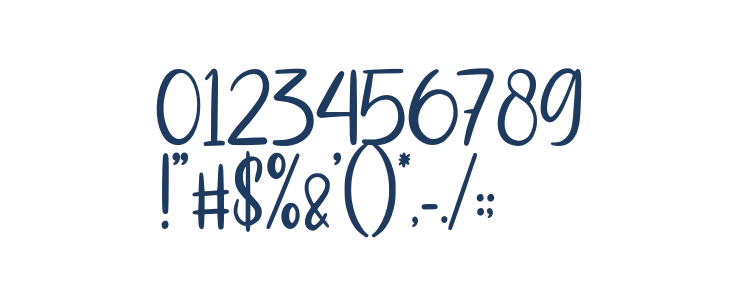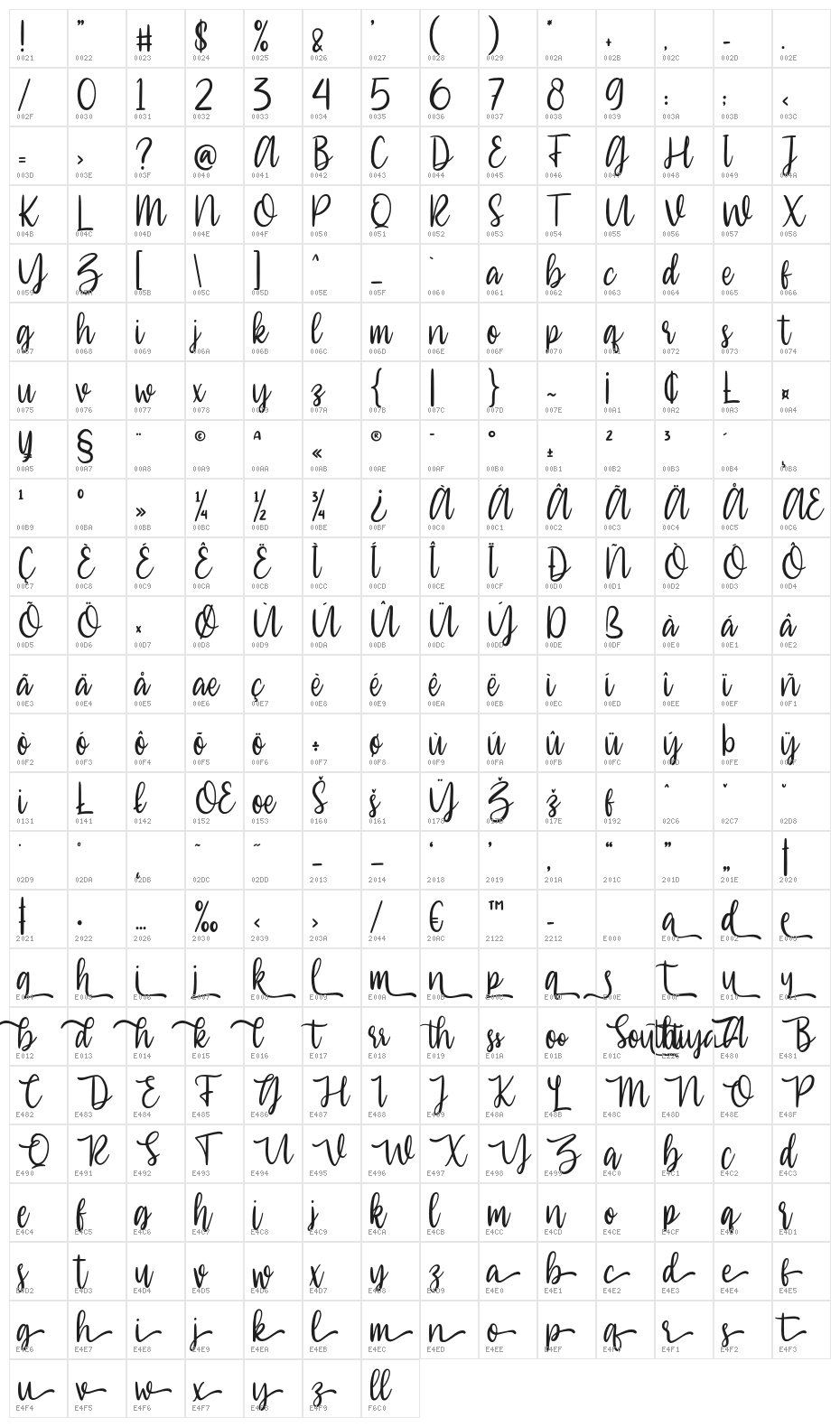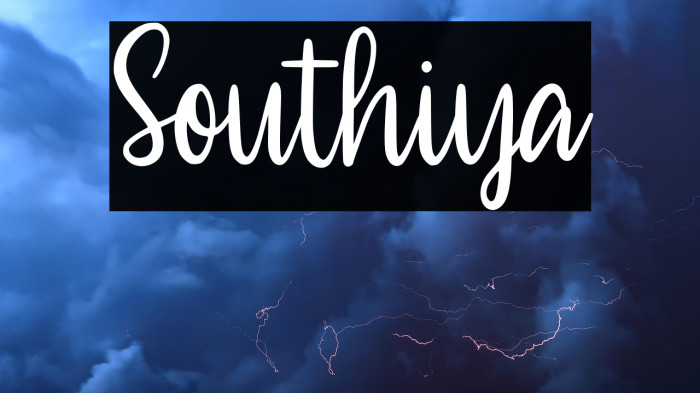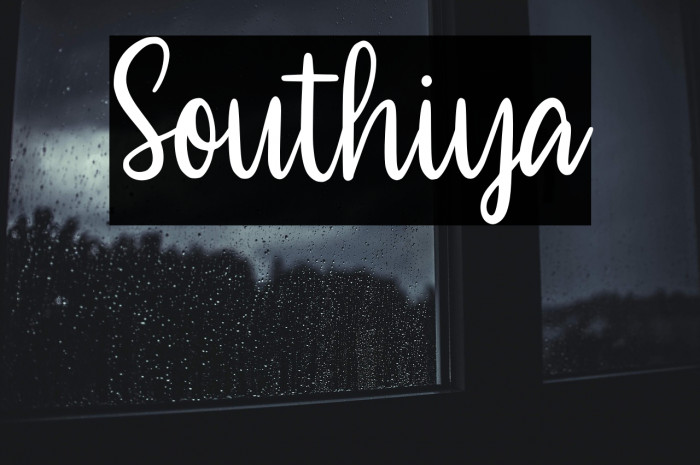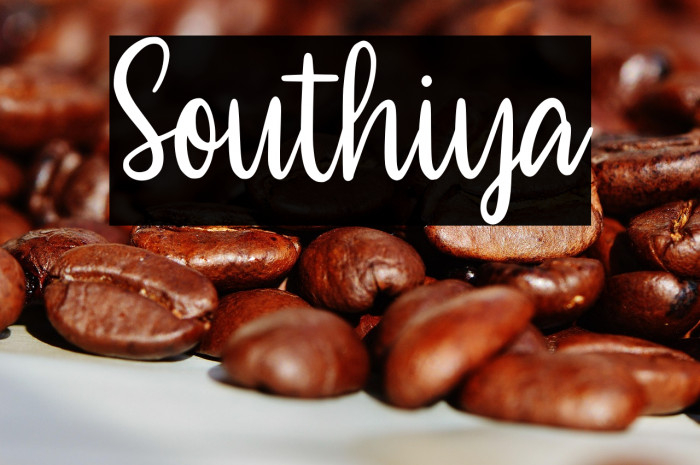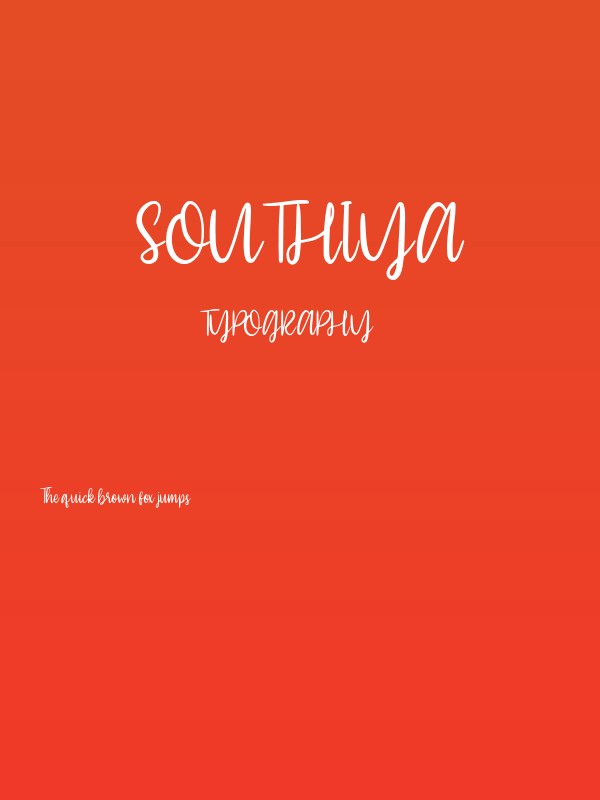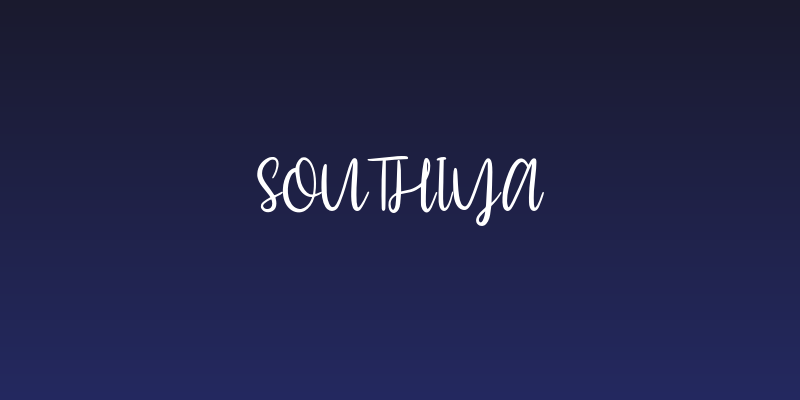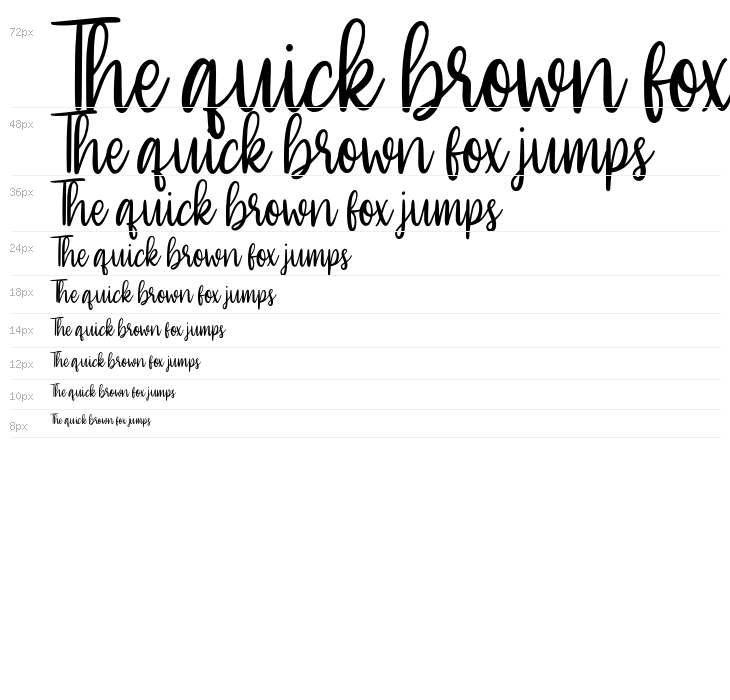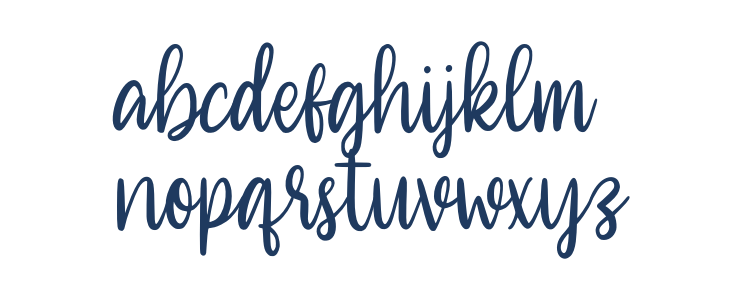
Southiya Font
Southiya Description
This font features a playful and energetic script style, characterized by its flowing, cursive letterforms. The uppercase letters are bold and dynamic, with a slight slant that adds to the overall movement of the text. The lowercase letters maintain a consistent rhythm, with smooth connections between characters, enhancing the handwritten feel. The numerals are clear and legible, matching the style of the letters. Special characters are creatively integrated, maintaining the font's lively aesthetic. This font is ideal for projects that require a personal touch, such as invitations, greeting cards, or branding materials that aim to convey warmth and approachability.